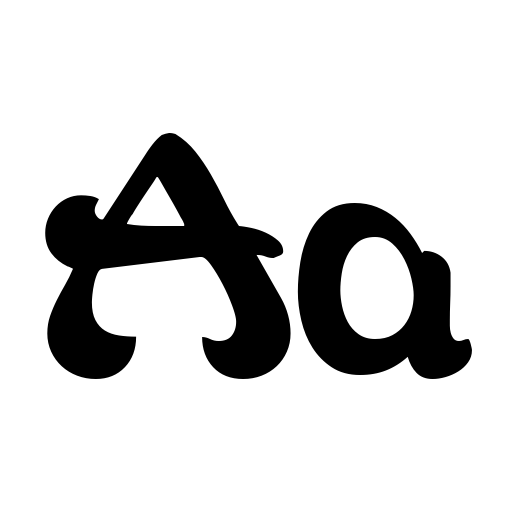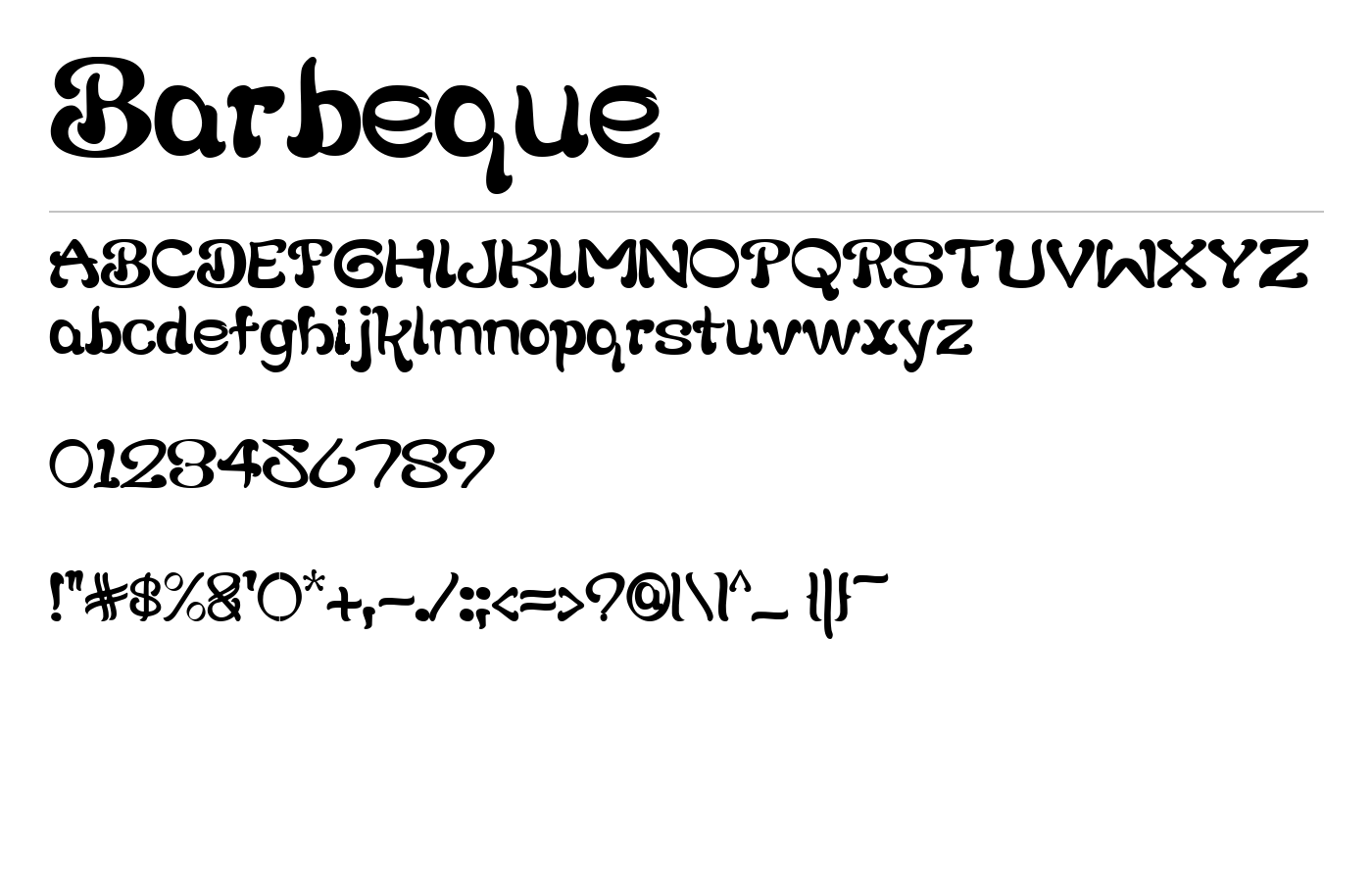
Barbeque is a playful and bold serif font with whimsical, rounded shapes and a moderate contrast between thick and thin strokes. Its unique letterforms, featuring curled terminals and decorative flourishes, give it a friendly and vintage feel that works well for eye-catching headlines, logos, and creative branding. This font is perfect for projects seeking a fun and distinctive personality with a nostalgic touch.
Barbeque Font
About Barbeque Font
| Font family | Barbeque Font |
| Designer | Waton Studio |